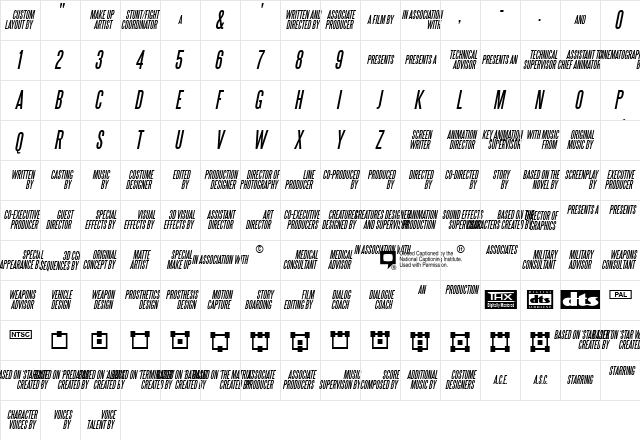
SteelTongs Italic
| Foundry | TracerTong (Modified Steelfish by Larabiefonts.com) |
Design Context for SteelTongs Typeface
SteelTongs takes a measured approach to typography — its balanced proportions and neutral character make it a reliable workhorse for both digital and print work. The slanted form adds forward momentum and visual energy.
Pro Tip: Try SteelTongs for annotation and caption copy alongside an upright companion — the contrast in angle creates a dynamic but ordered typographic system.